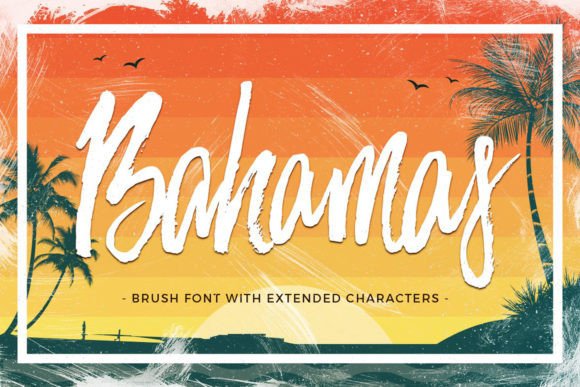
Are you looking for a script font that will elevate your wedding program to the next level? Look no further than the exquisite Bahamas Brush Font! Crafted by the talented ivanrosenberg, this modern handwritten font is the perfect choice for any project that requires a touch of elegance and sophistication.
What sets the Bahamas Brush Font apart is its unique blend of delicacy and authenticity. Each letter has been carefully crafted with delicate brush strokes to create a stunning handwritten feel. Whether you're creating a wedding program, a social media graphic, or a branding project, this font will add a touch of beauty and charm to your designs.
But don't let its beauty fool you - the Bahamas Brush Font is also incredibly versatile. Its contemporary style and clean lines make it the perfect choice for a wide range of projects. Whether you're looking to create an elegant logo or a bold headline, this font can handle it all.